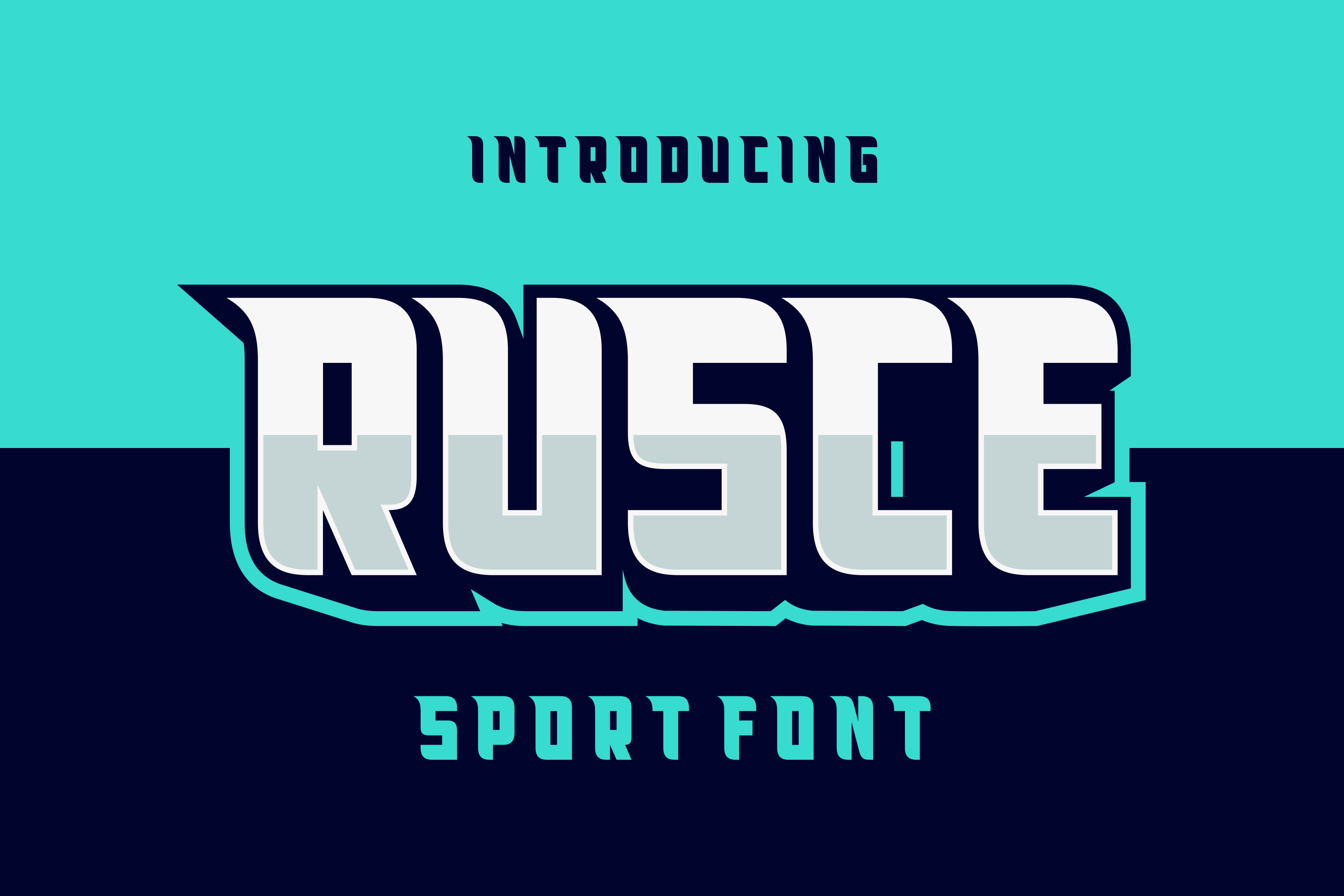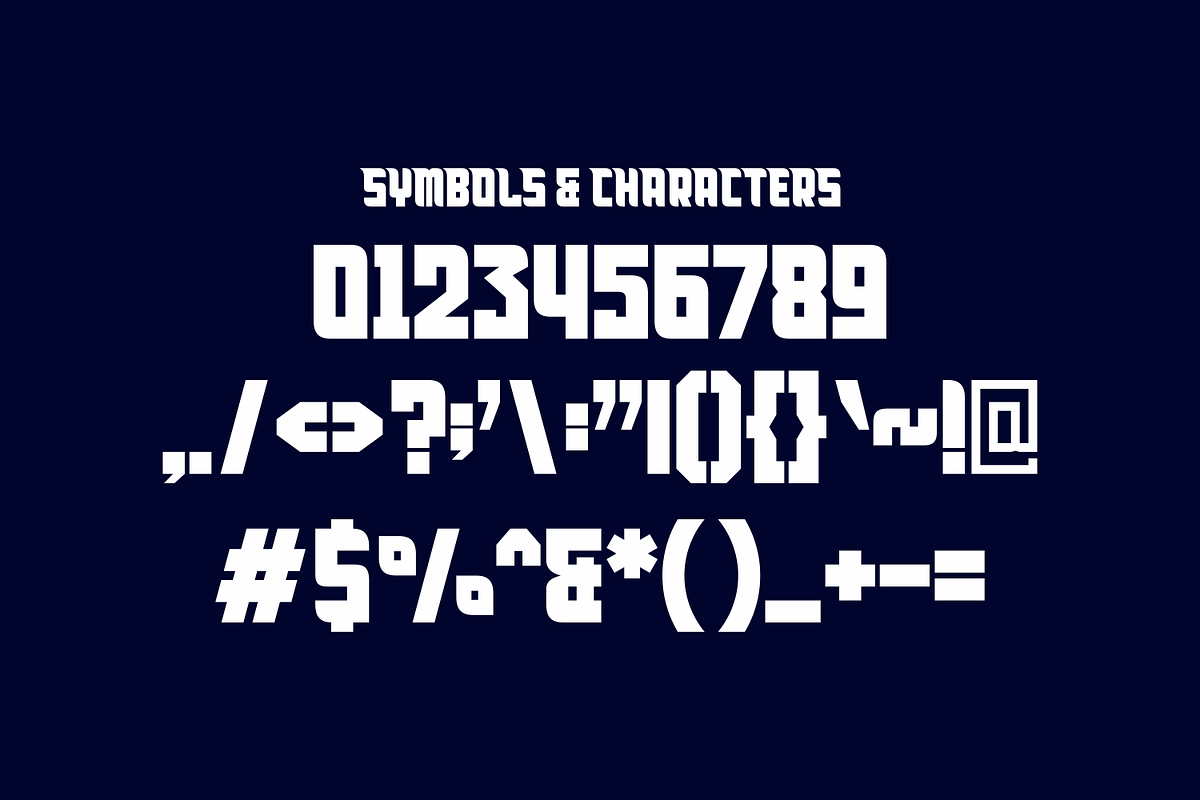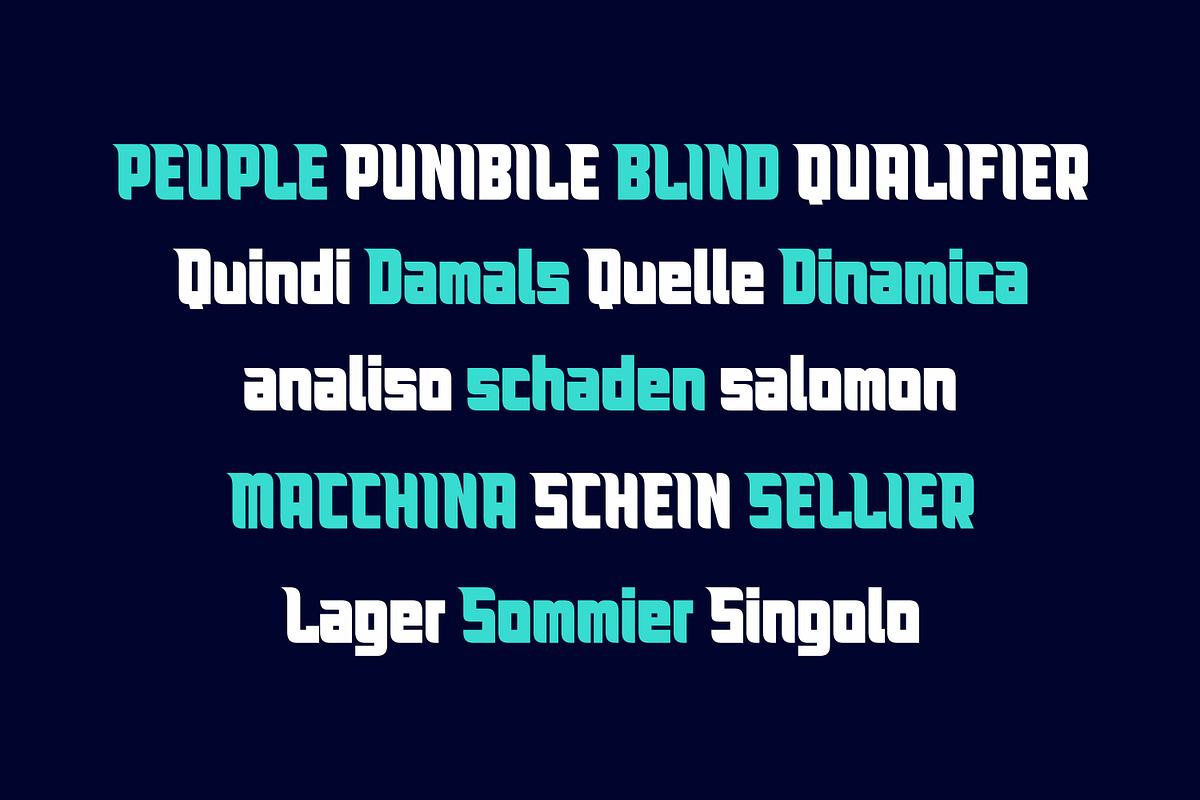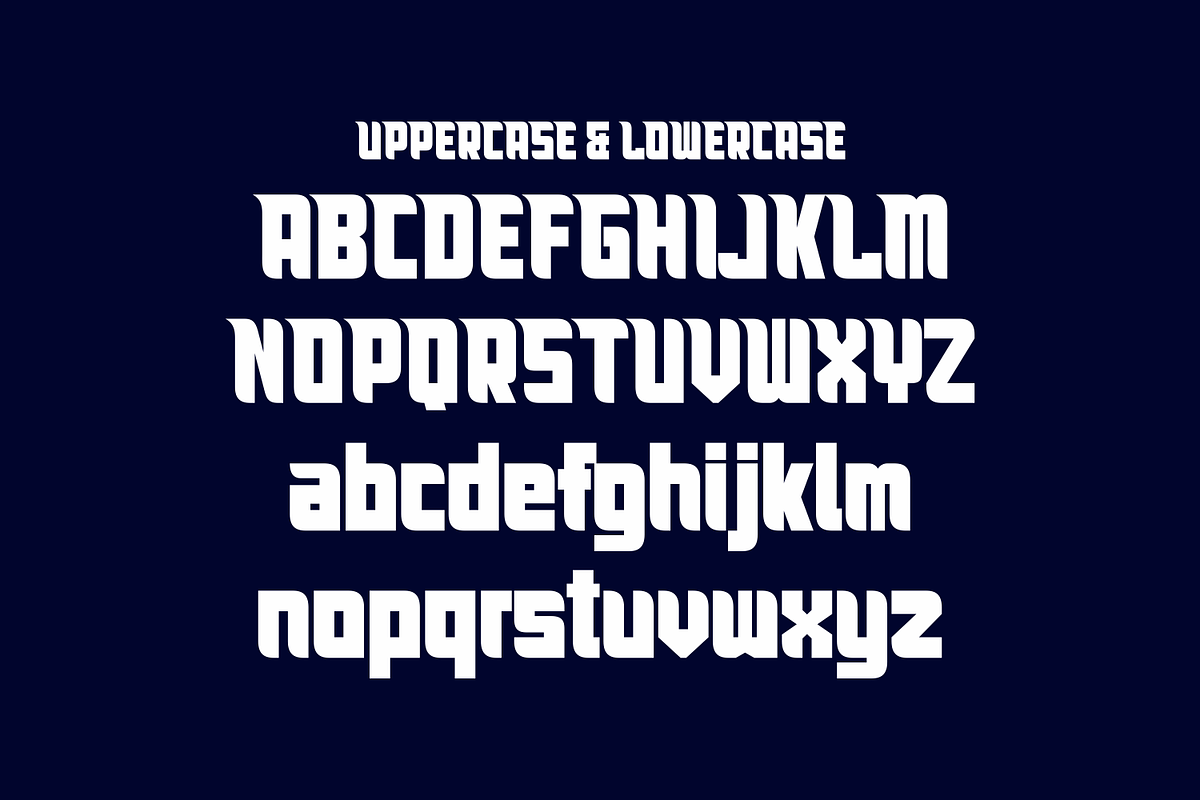
Rusce - Bold Sport Font
font Rusce - Bold Sport Font Perfectly suited on print/screen. it’s perfect for Branding, name card, poster, logo, magazine, cover, banner, t-shirt and headers, or even large-scale artwork.